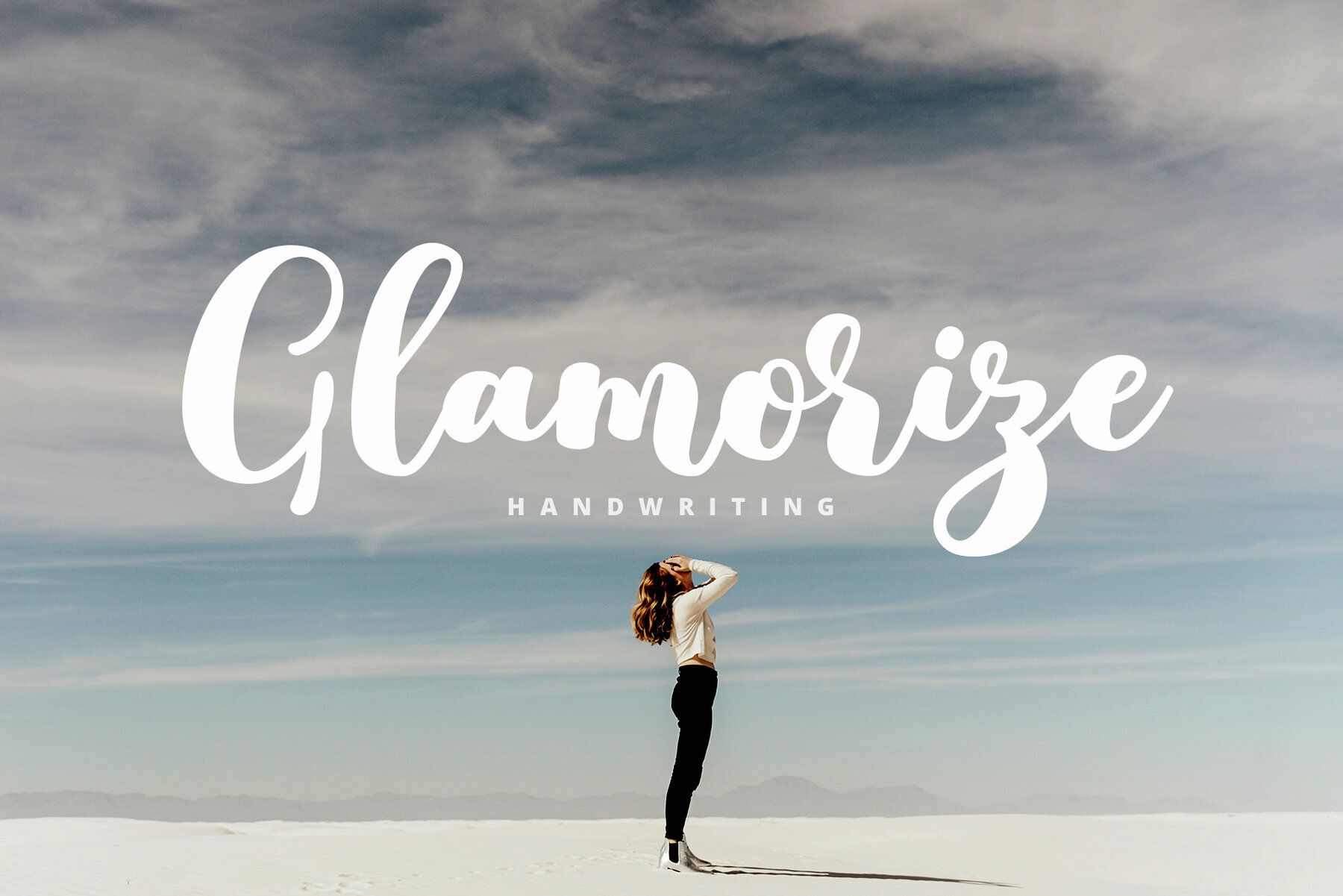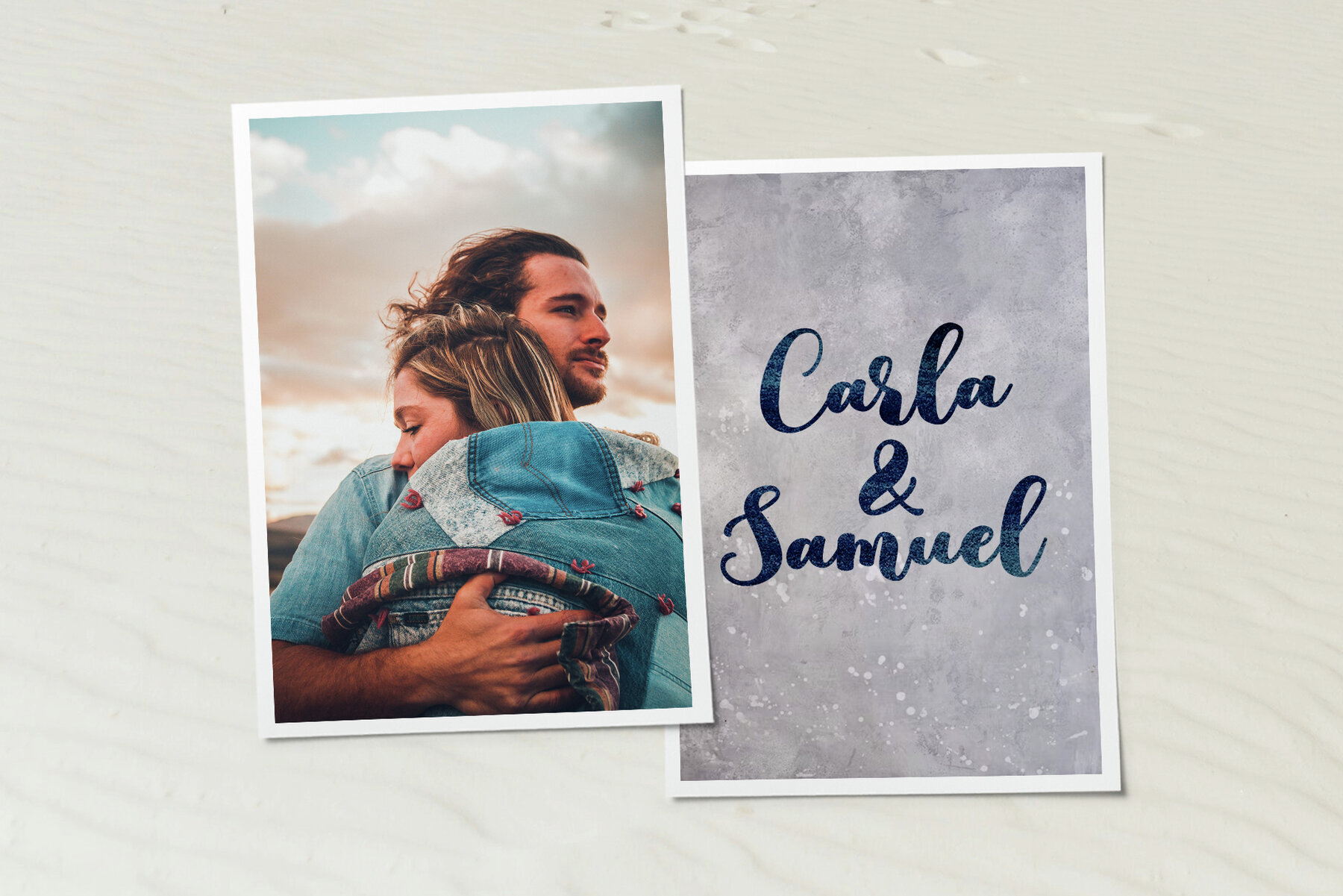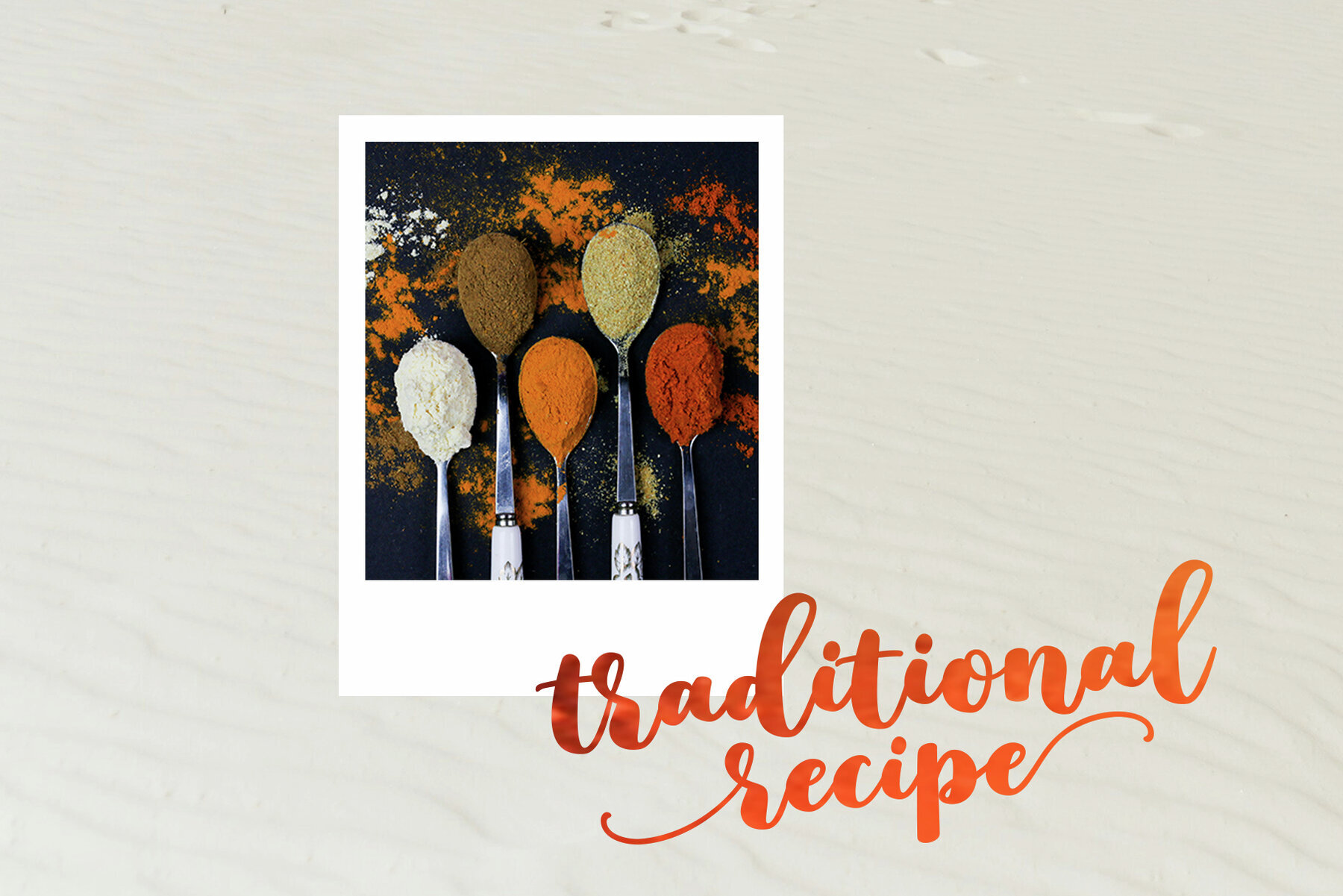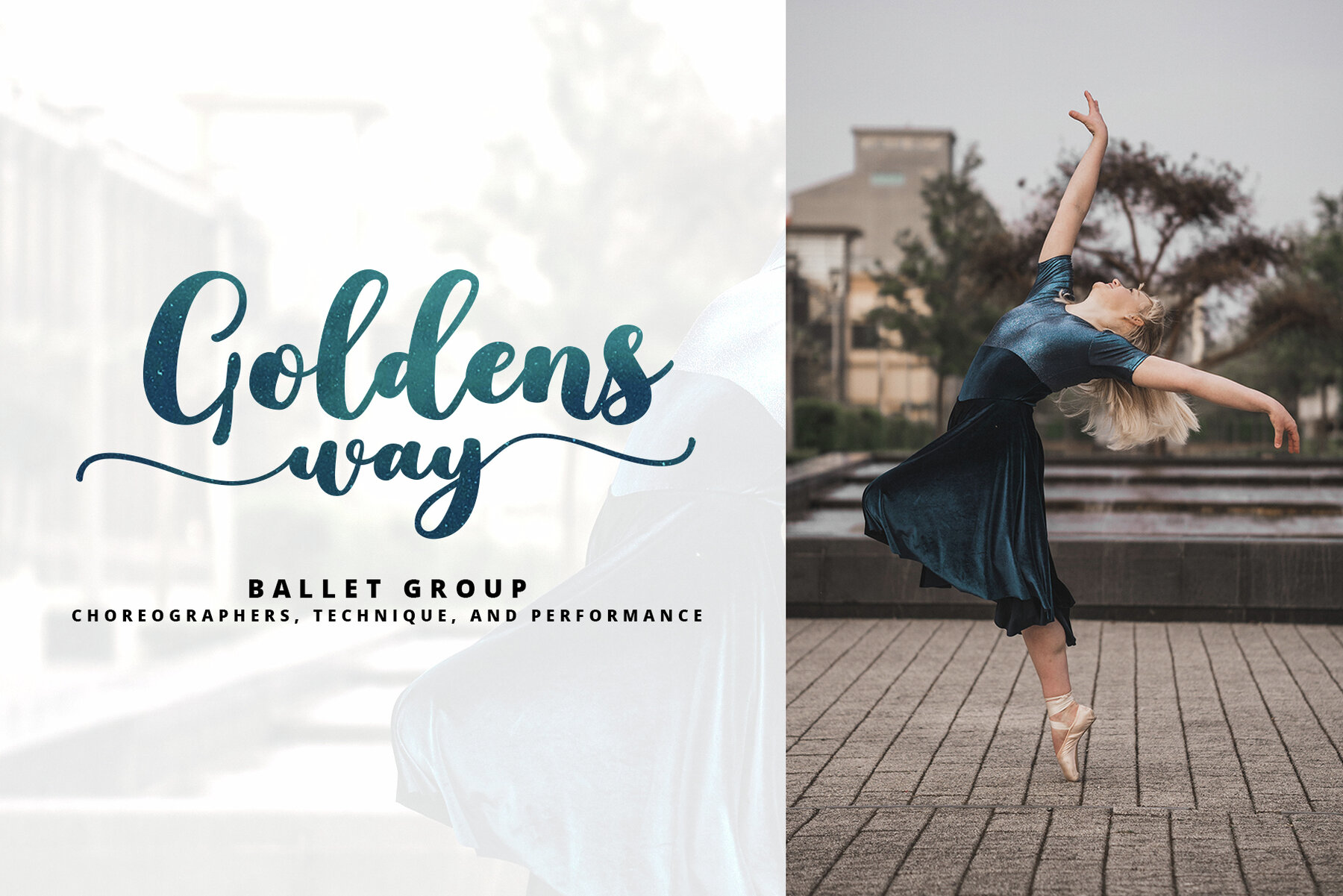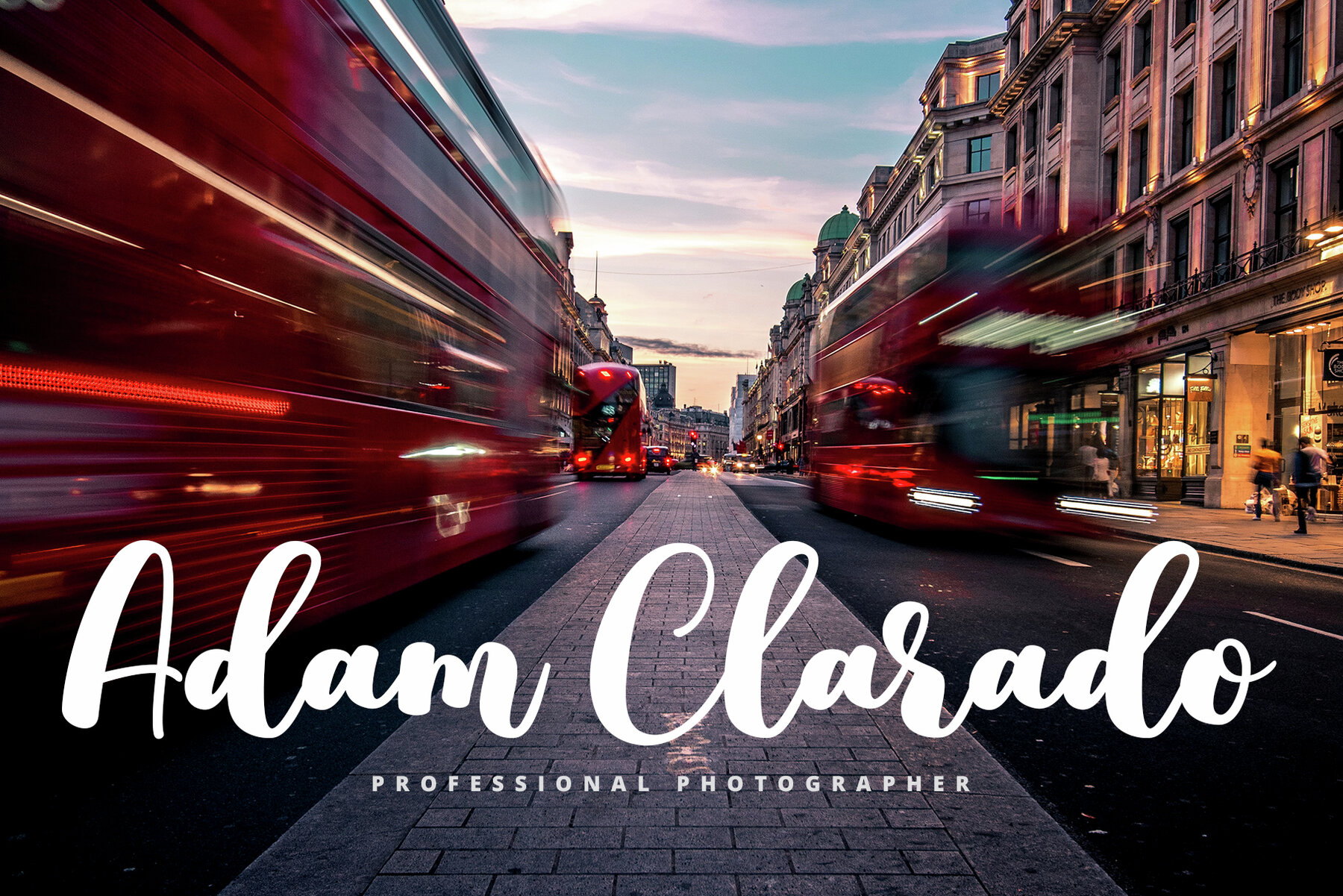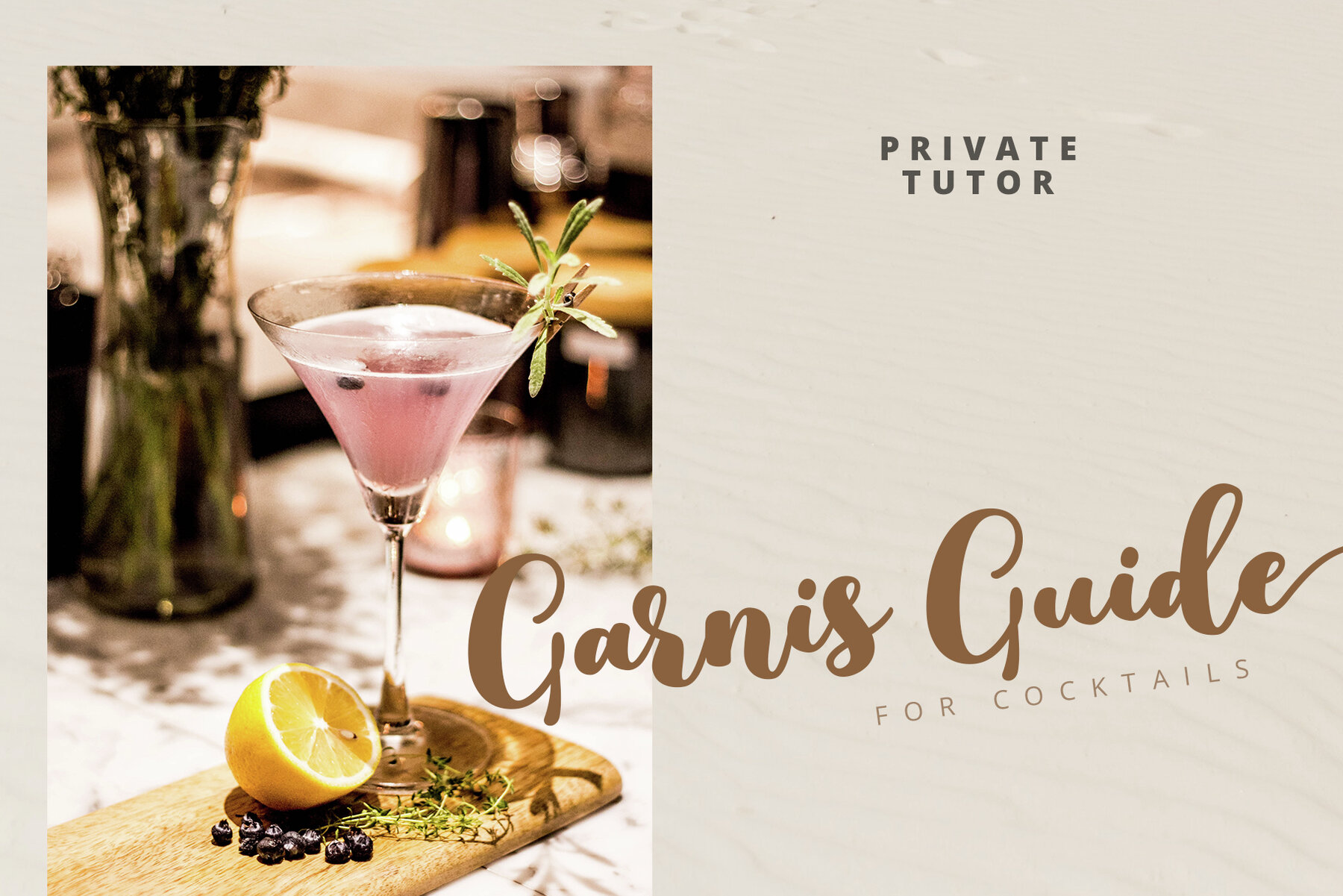
Glamorize Script Font
Glamorize Script
Discover the bold and unique charm of Glamorize Script, a refreshing new handwritten font that seamlessly blends cute and trendy styles. Perfectly designed to cater to your diverse design needs, Glamorize Script is your go-to font for the latest trends. Its versatile style makes it an ideal choice for a variety of projects, both personal and professional.Glamorize Script: A Trendy Handwritten Font
Endless Design Opportunities